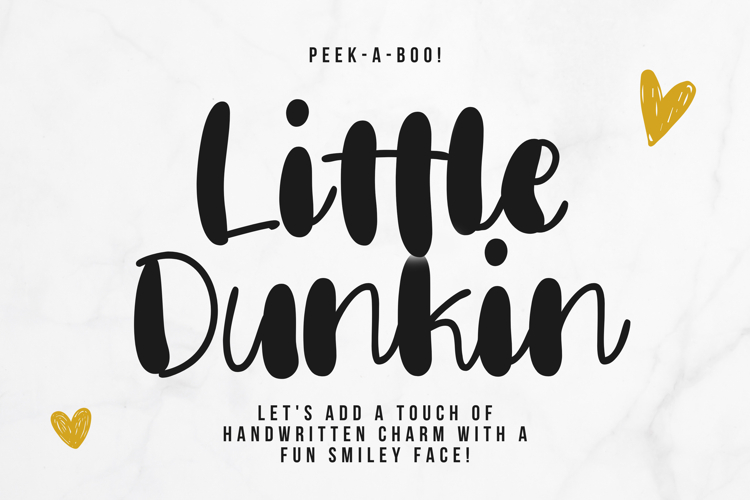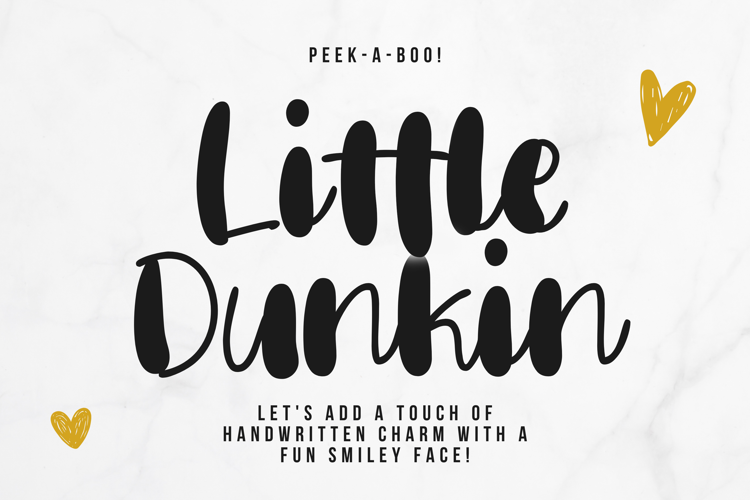
Little Dunkin – A Bubbly Font Full of Fun!
Meet Little Dunkin—a handwritten bubble font packed with charm and playful curves! Inspired by street fashion and spontaneous doodles, this font brings joyful energy to every design.
Perfect for streetwear branding, posters, fashion layouts, quotes, or giving your images a stylish text pop.
✨ Uppercase & lowercase letters
✨ Numbers & punctuation
✨ Multilingual support
✨ Fun, bouncy letterforms